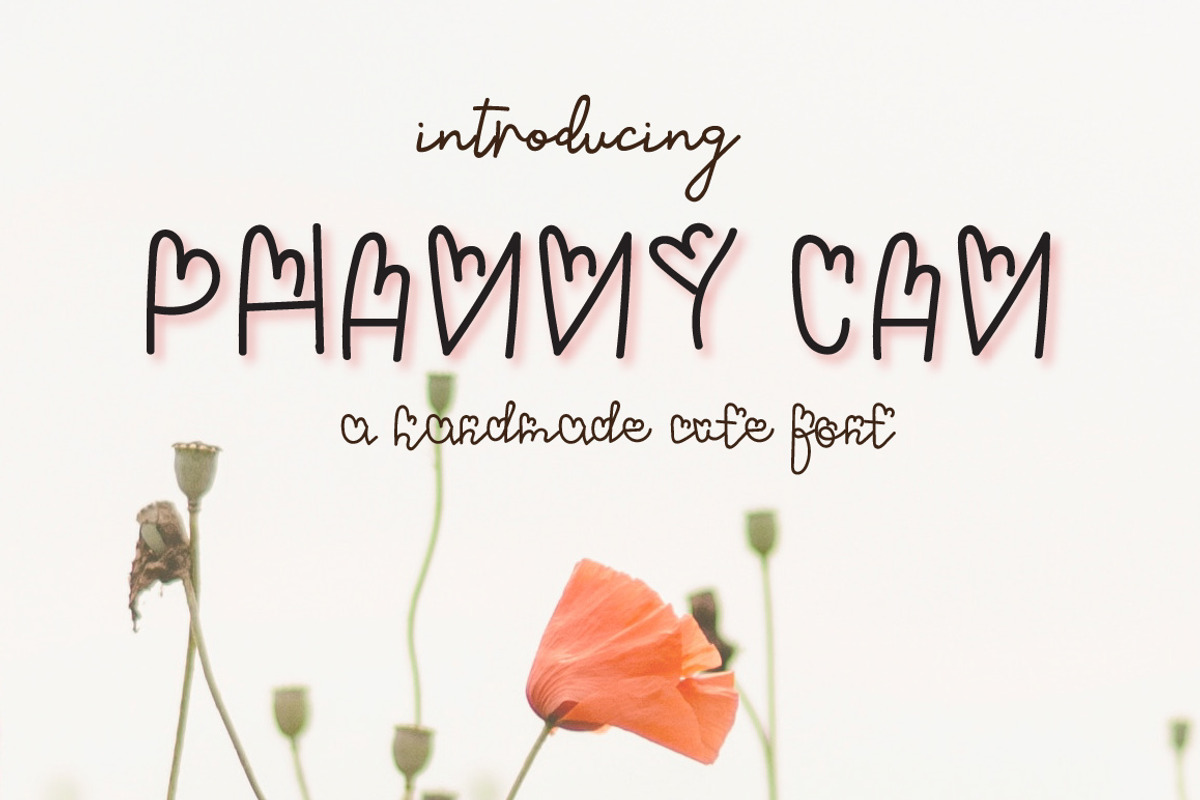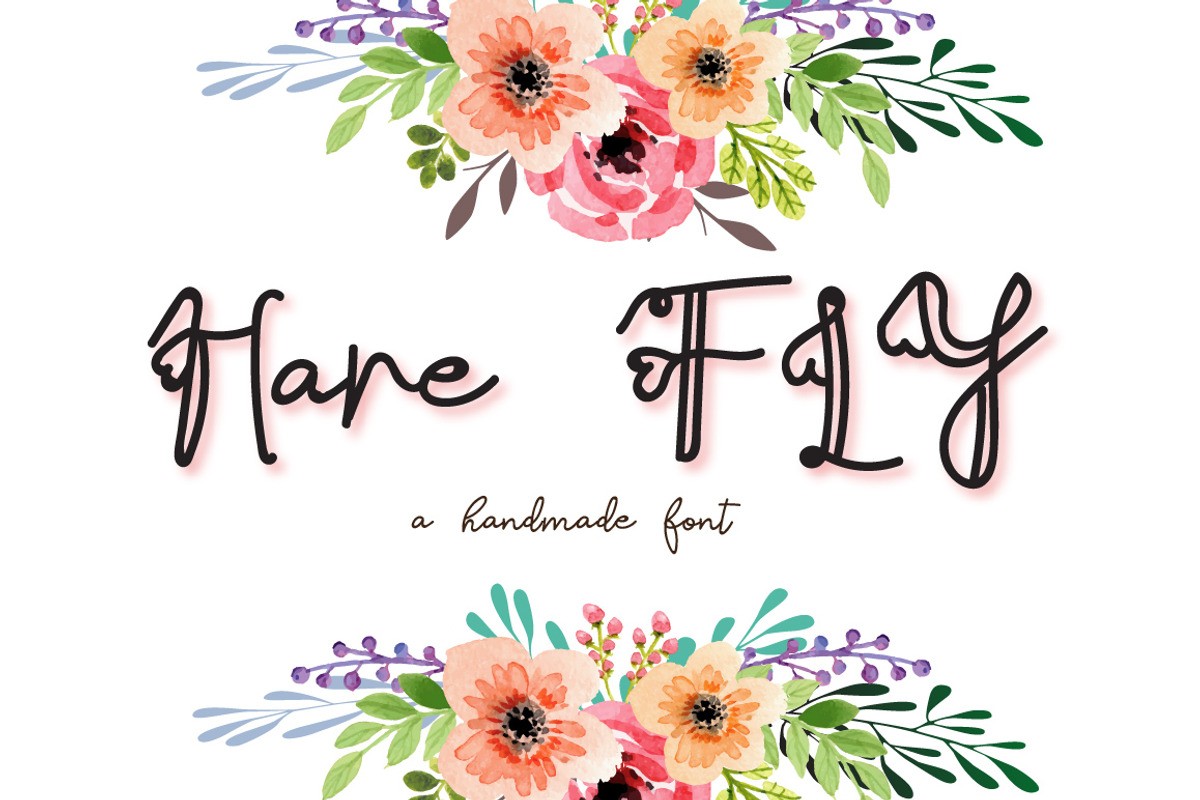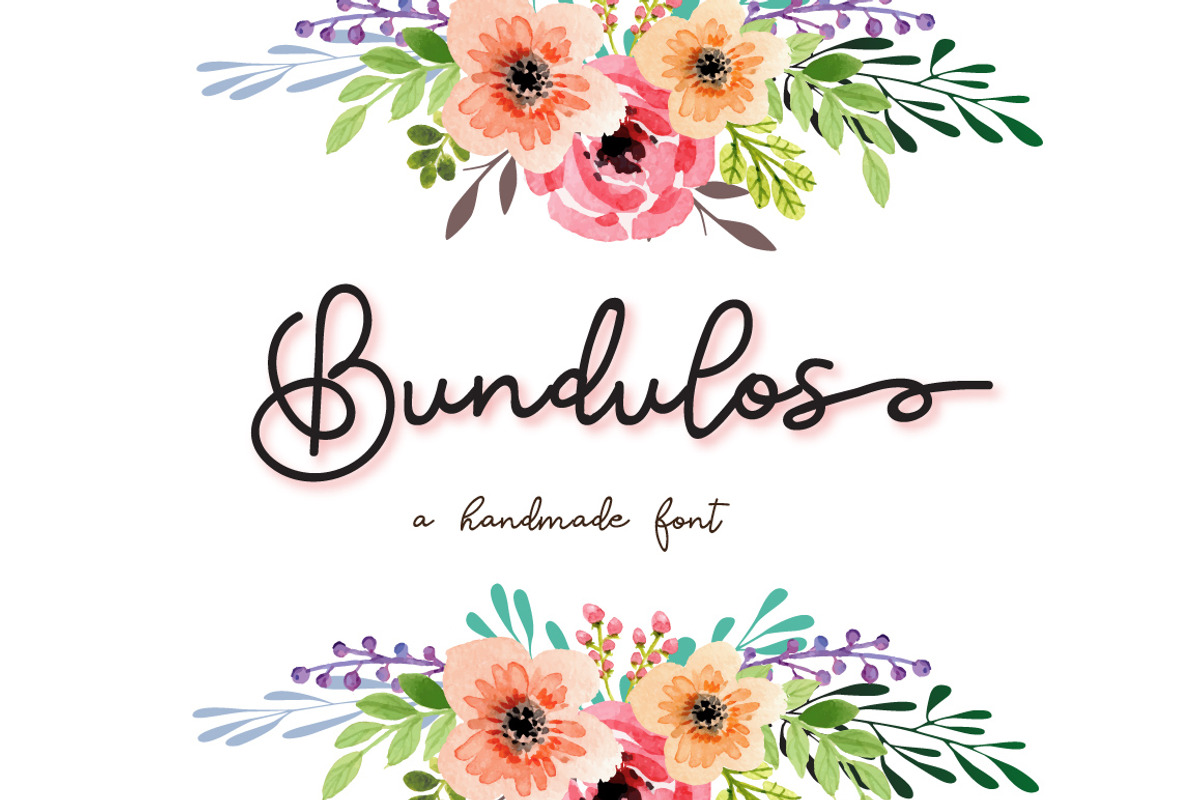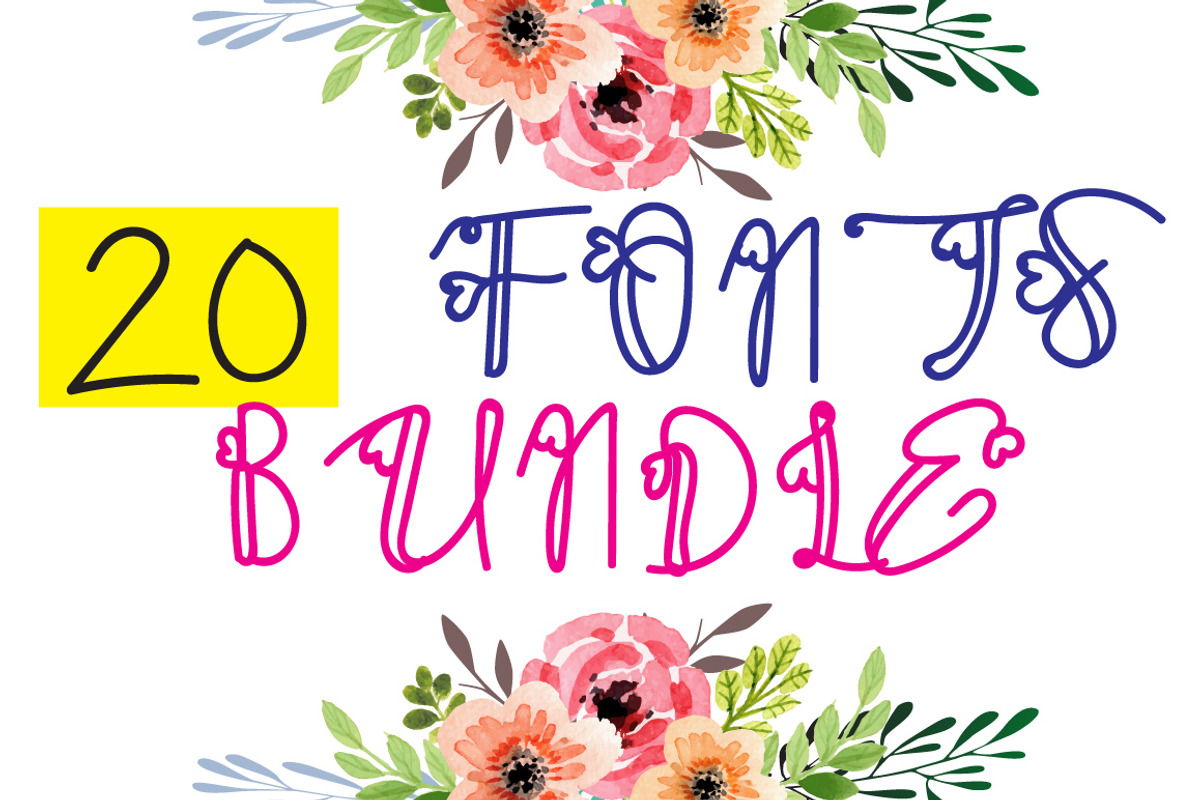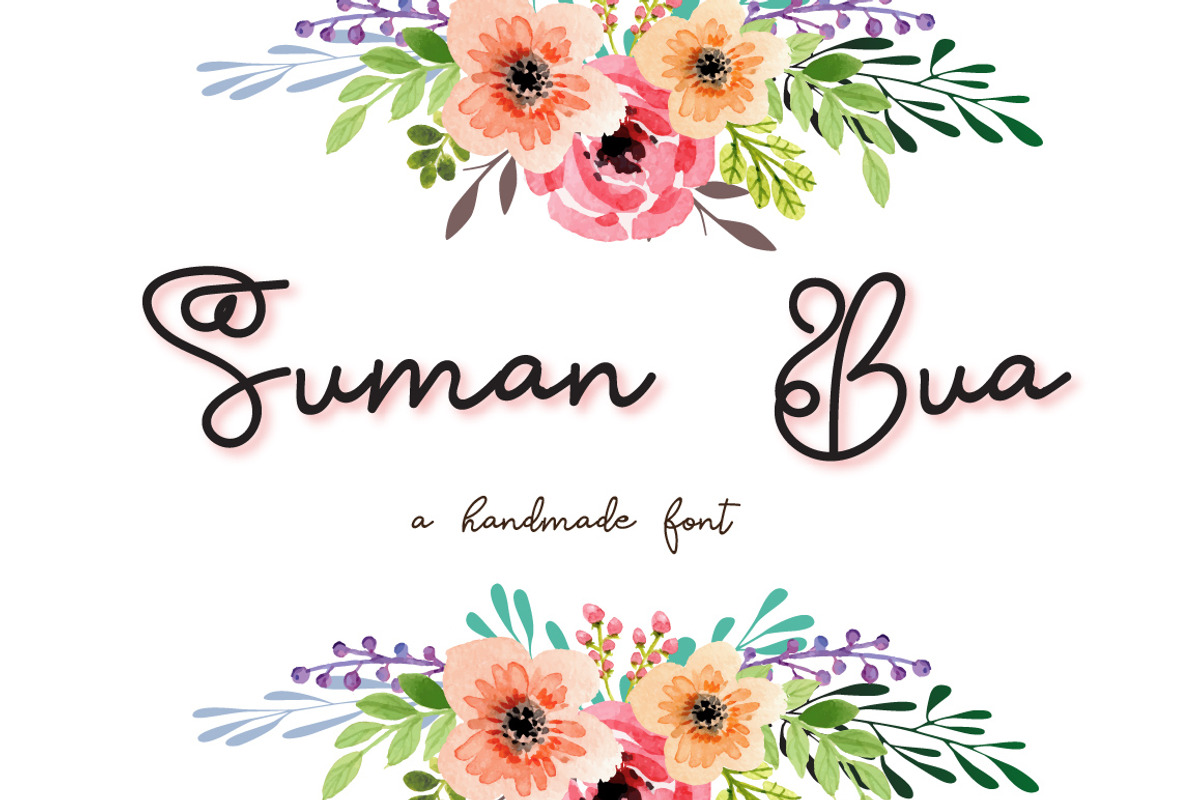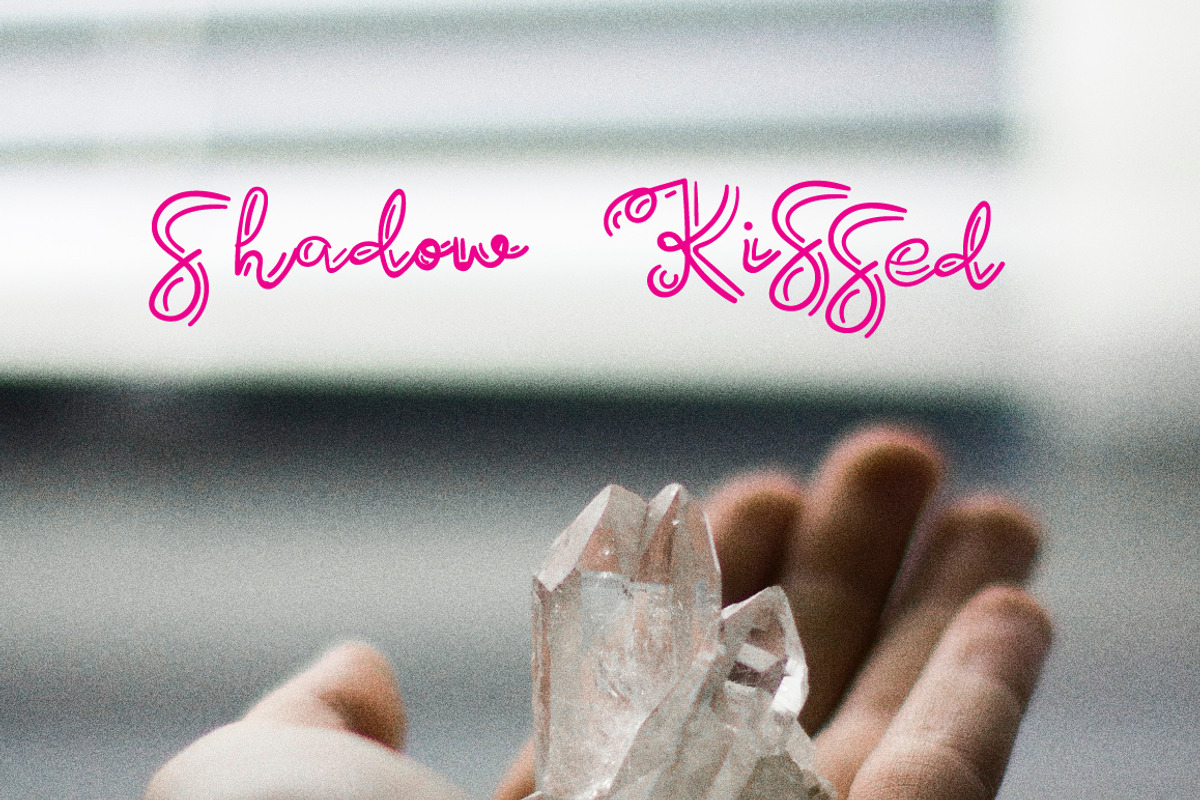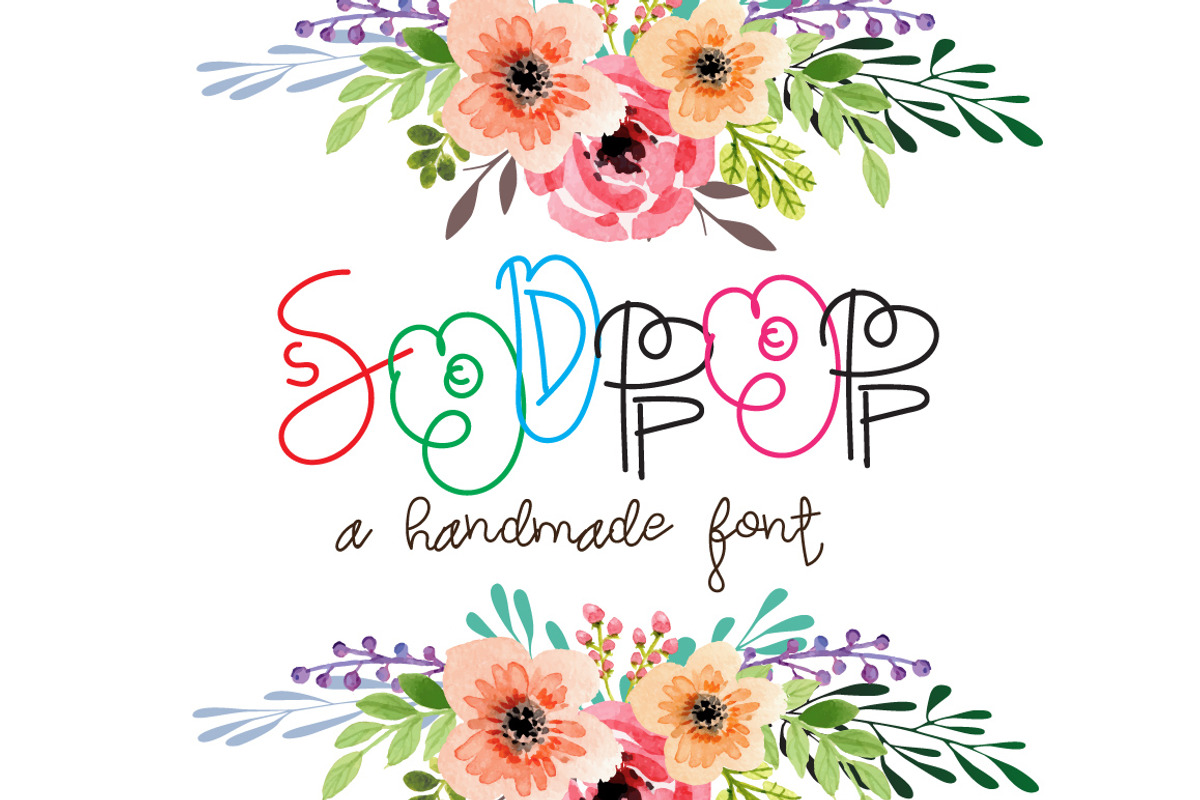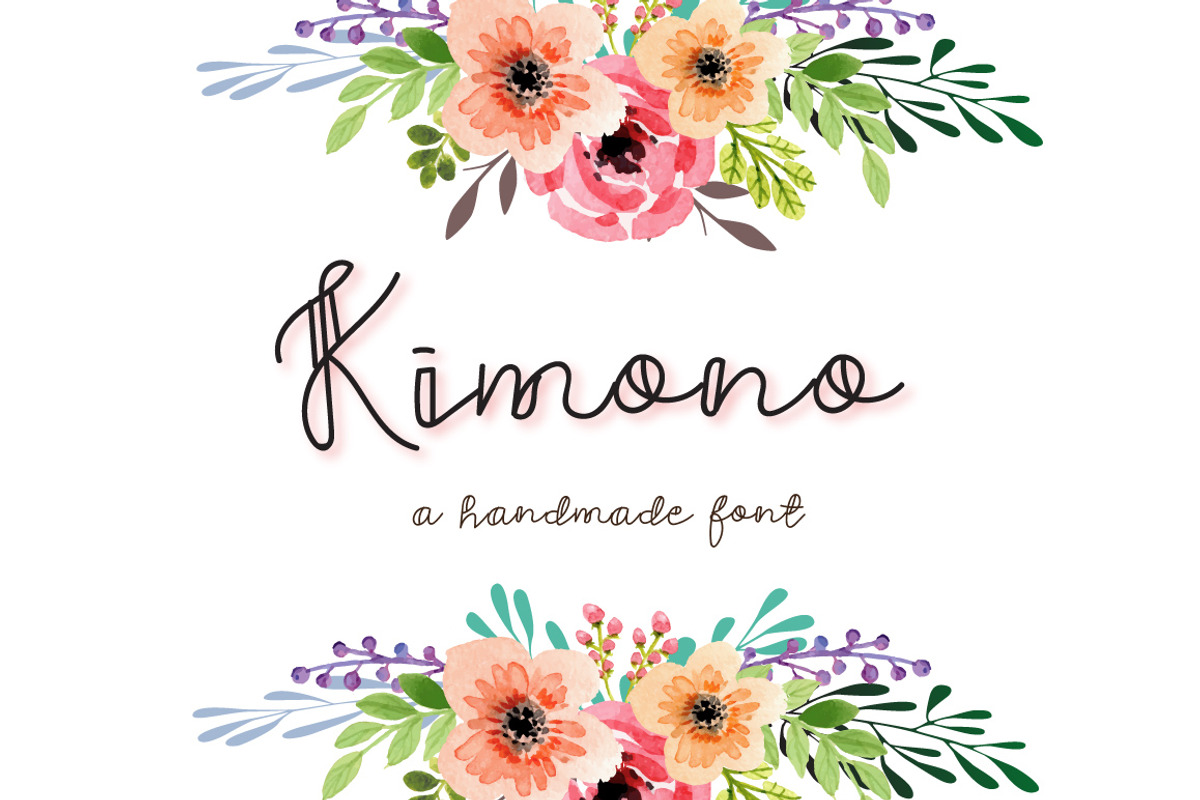
Autumn Fonts Bundle - 20 deco fonts
Autumn Font Bundle has all my best fonts collection! I really hope you like them. All these fonts have tones of alternates, every single letters have been carefully crafted to make your text looks beautiful. With modern script style these font will be perfect for many different project ex: quotes, blog header, poster, wedding, branding, logo, fashion, apparel, letter, invitation, stationery, etc.
- All these fonts have tones of alternates, every single letters have been carefully crafted to make your text looks beautiful.